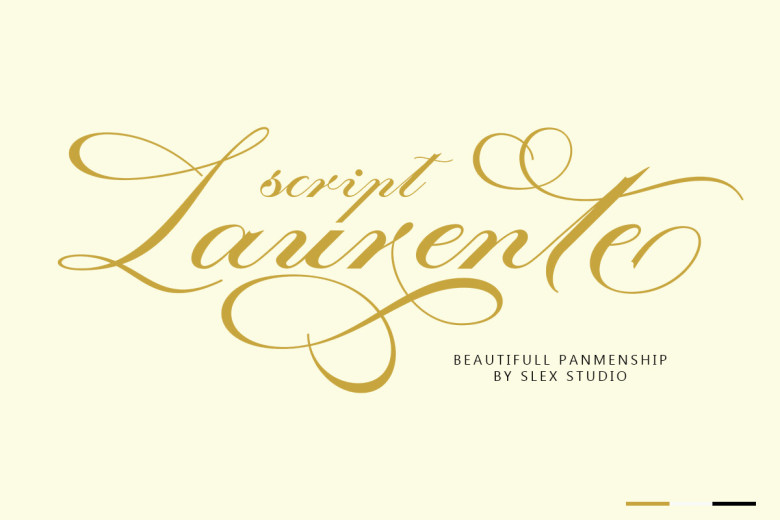
Laurente Script Font
Laurente Script is an exquisite script font designed specifically for calligraphy with smooth curves, clear lines and fine strokes. Elegant yet sophisticated in its simple script style with Swash and Decorative alternatives (including distinctive local styles) which allow users to take their designs to new aesthetics and sophistication.
Laurente Script includes 593 glyphs which include alternative ornaments and ligatures; take advantage of professional software which supports numerous OpenType features to take full advantage of Laurente Script!
Laurente Script Calligraphy Font